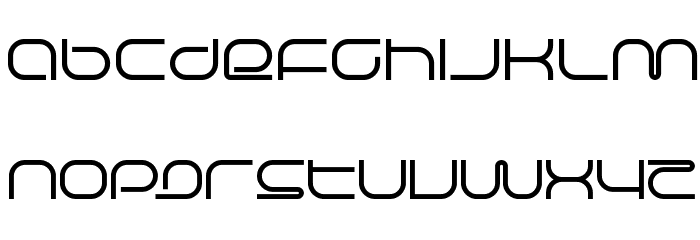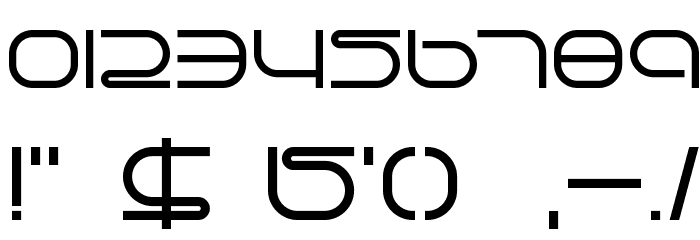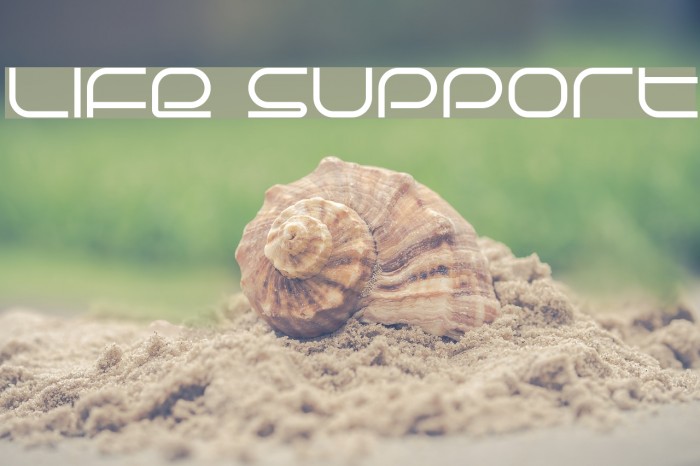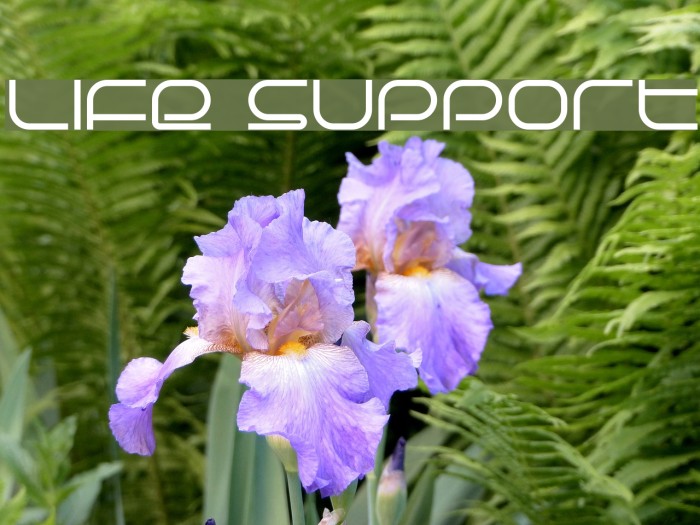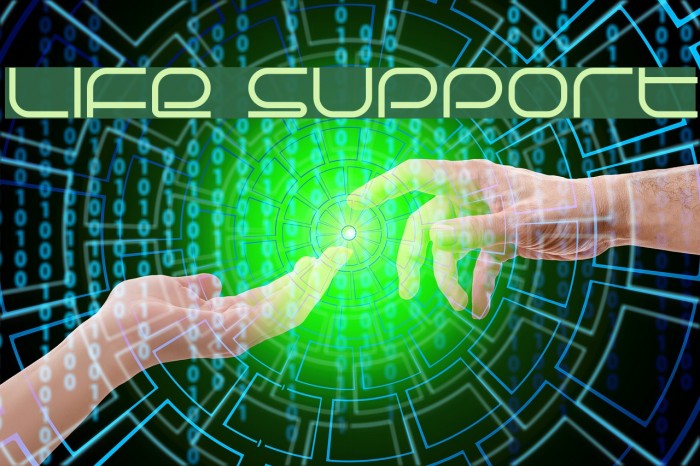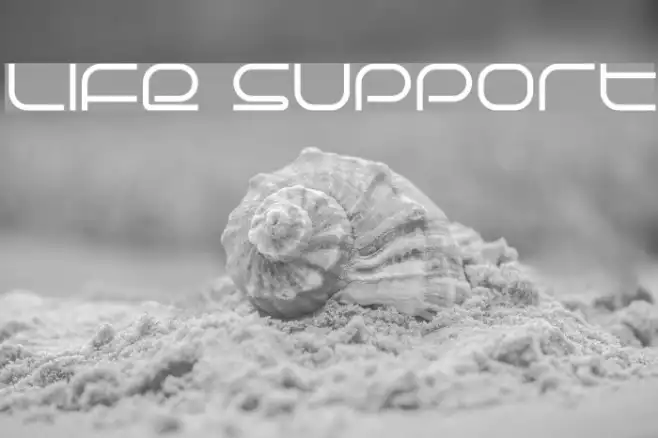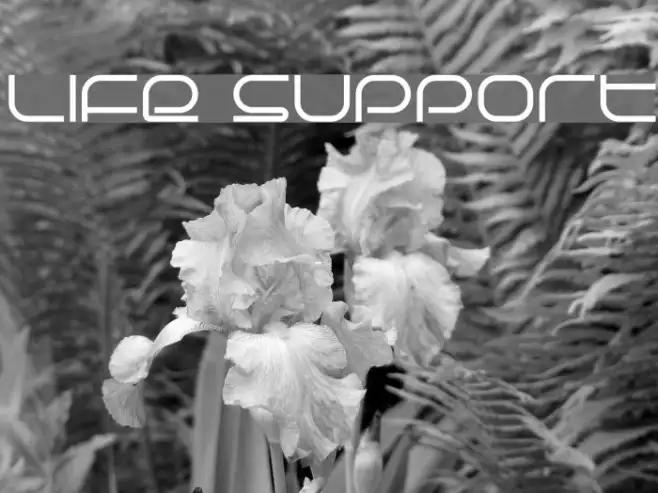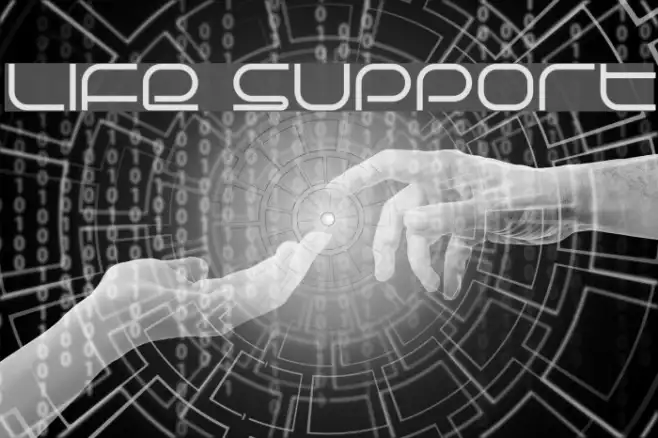
Life Support Font
This font features a modern, futuristic design with clean, geometric lines and a minimalist aesthetic. The characters are composed of consistent, rounded strokes that create a sense of uniformity and balance. The uppercase and lowercase letters share similar structural elements, enhancing the cohesive look. The numerals and special characters maintain the same stylistic approach, ensuring a seamless integration across different uses. The overall appearance is sleek and contemporary, making it suitable for projects that require a cutting-edge, tech-inspired feel.
A modern, geometric font with a futuristic and minimalist design.
- Proposed Projects: Ideal for technology branding, sci-fi themed projects, modern advertising, and digital interfaces.
- Overall Style: Futuristic
- Use Case: Logos, Headlines, Digital Interfaces